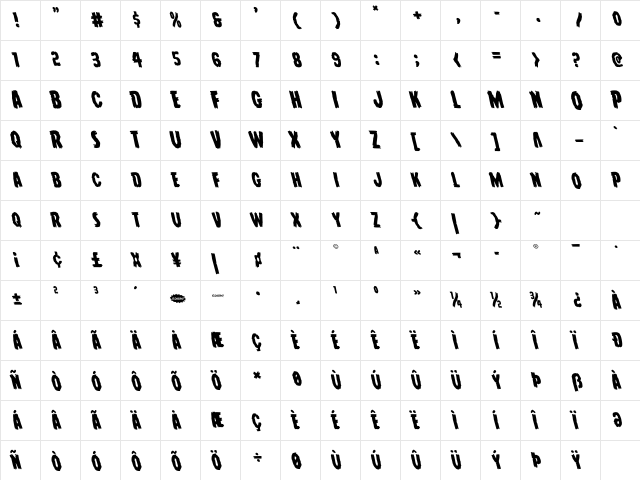
Young Frankenstein Leftalic Italic Font Preview
Young Frankenstein Leftalic Italic
Design Context for Young Frankenstein Leftalic Typeface
Young Frankenstein Leftalic is a composed and adaptable typeface that performs quietly and consistently across a wide range of design contexts. The dynamic lean of this cut emphasises speed and emphasis in any layout.